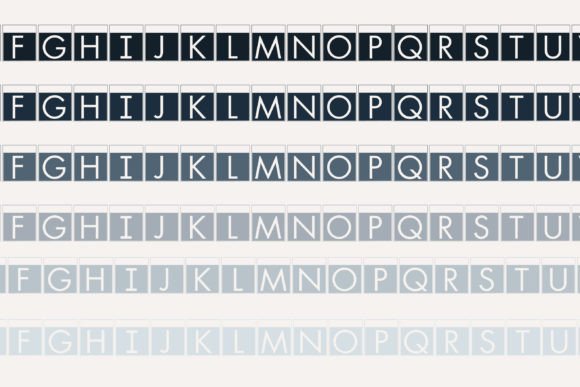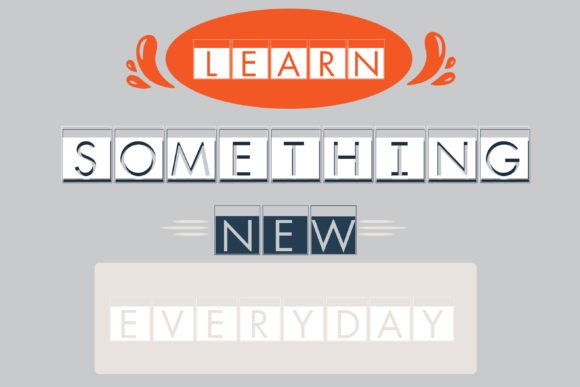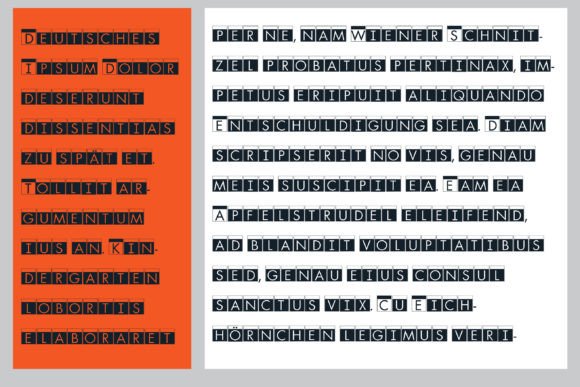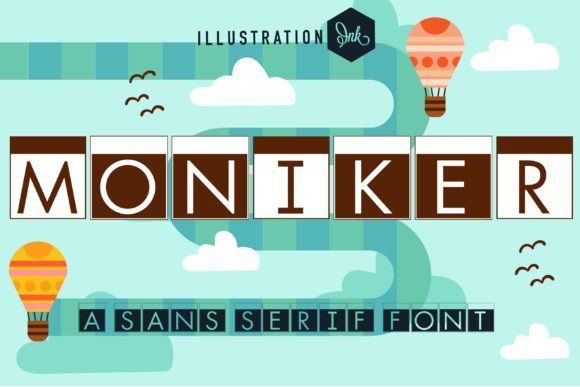
Introduction to Moniker Font
This hand-crafted, sans serif has β€œblank cards” as backgrounds.
The uppercase is in black and the lowercase is in reverse .
Key Features of Moniker Font